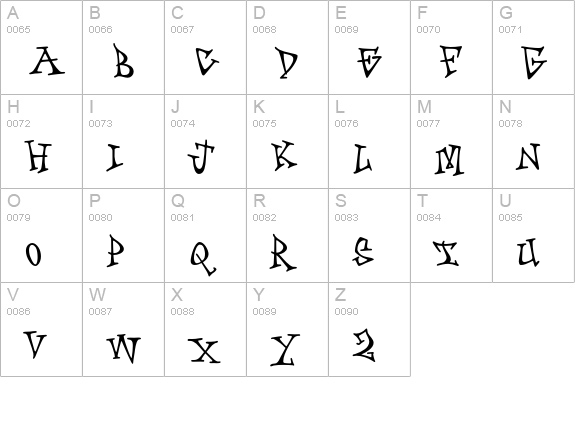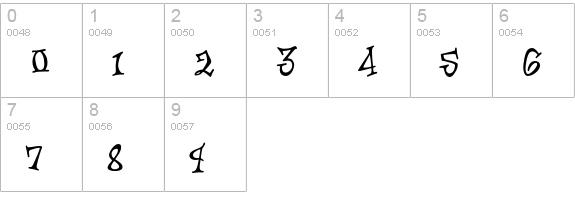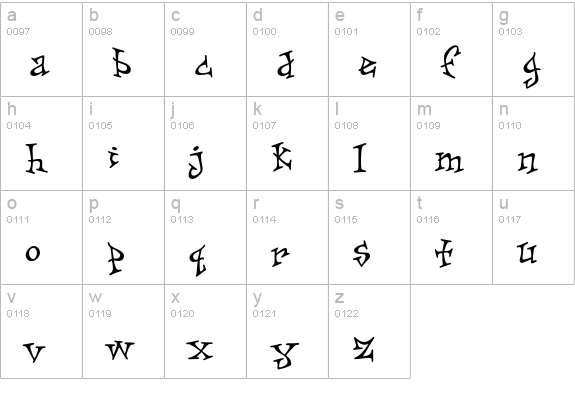
Skiffledog-BoldScratch Font Details
Introducing Skiffledog-BoldScratch, a font that exudes a bold and distinctive personality. With its rugged edges and scratchy appearance, this font is perfect for adding a touch of rebelliousness and raw energy to your designs. Skiffledog-BoldScratch is a free font that captures the essence of hand-drawn typography, effortlessly combining a sense of authenticity and uniqueness. Its rough and uneven strokes give it a distinct character, making it an ideal choice for projects seeking a gritty and urban feel. Whether you're designing posters, album covers, or branding materials, Skiffledog-BoldScratch will make your text stand out from the crowd. Its bold and attention-grabbing nature will draw viewers in, leaving a lasting impression. The best part? Skiffledog-BoldScratch is freely available to download at FontsMarket.com. Now you can enhance your designs without worrying about the cost. This font allows you to unleash your creativity without any constraints, making it an invaluable asset for both professional designers and casual enthusiasts alike. So go ahead, download Skiffledog-BoldScratch and let your imagination run wild. Elevate your designs with this free font and watch as it transforms your work into something truly remarkable. Get your hands on Skiffledog-BoldScratch now, exclusively at FontsMarket.com.